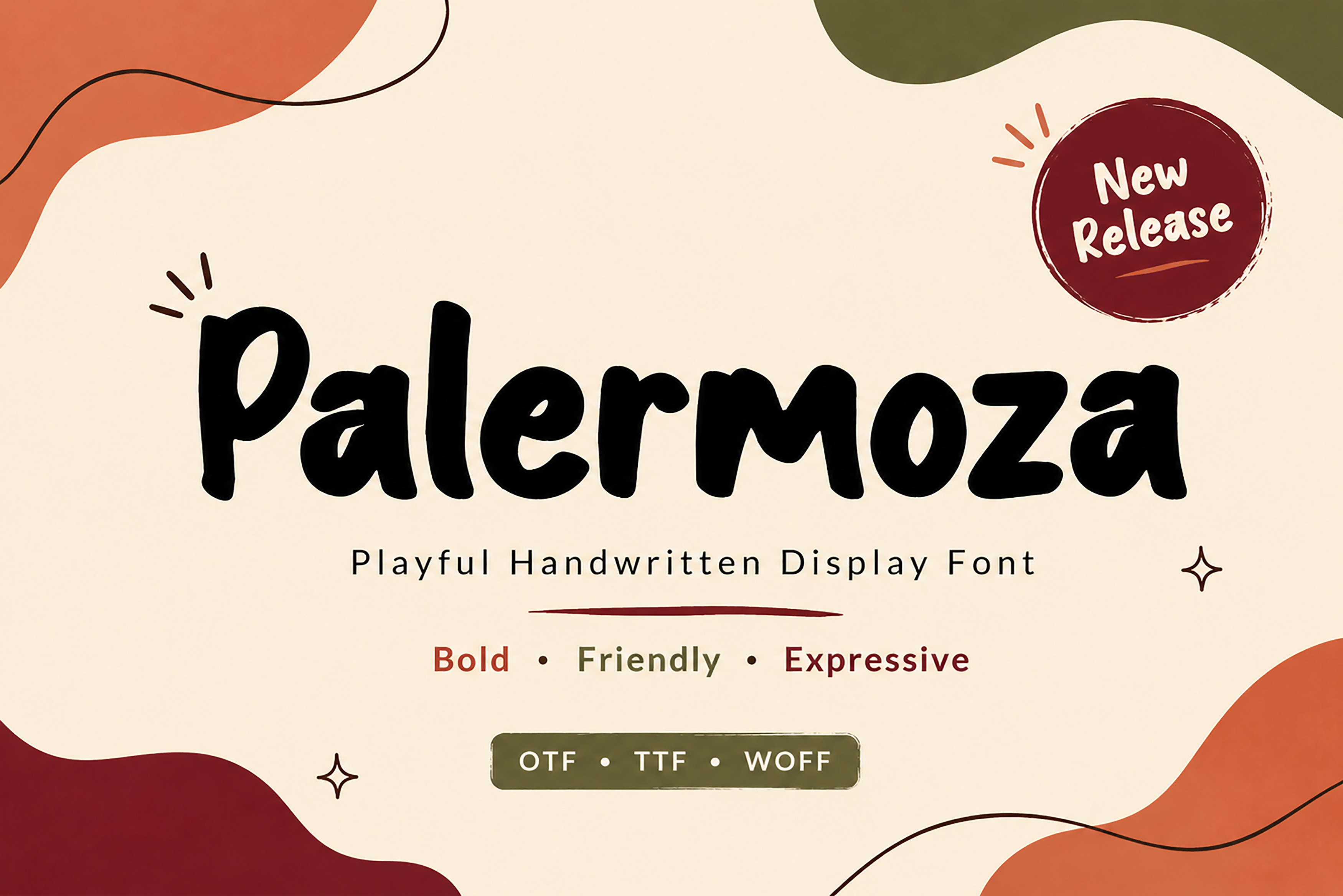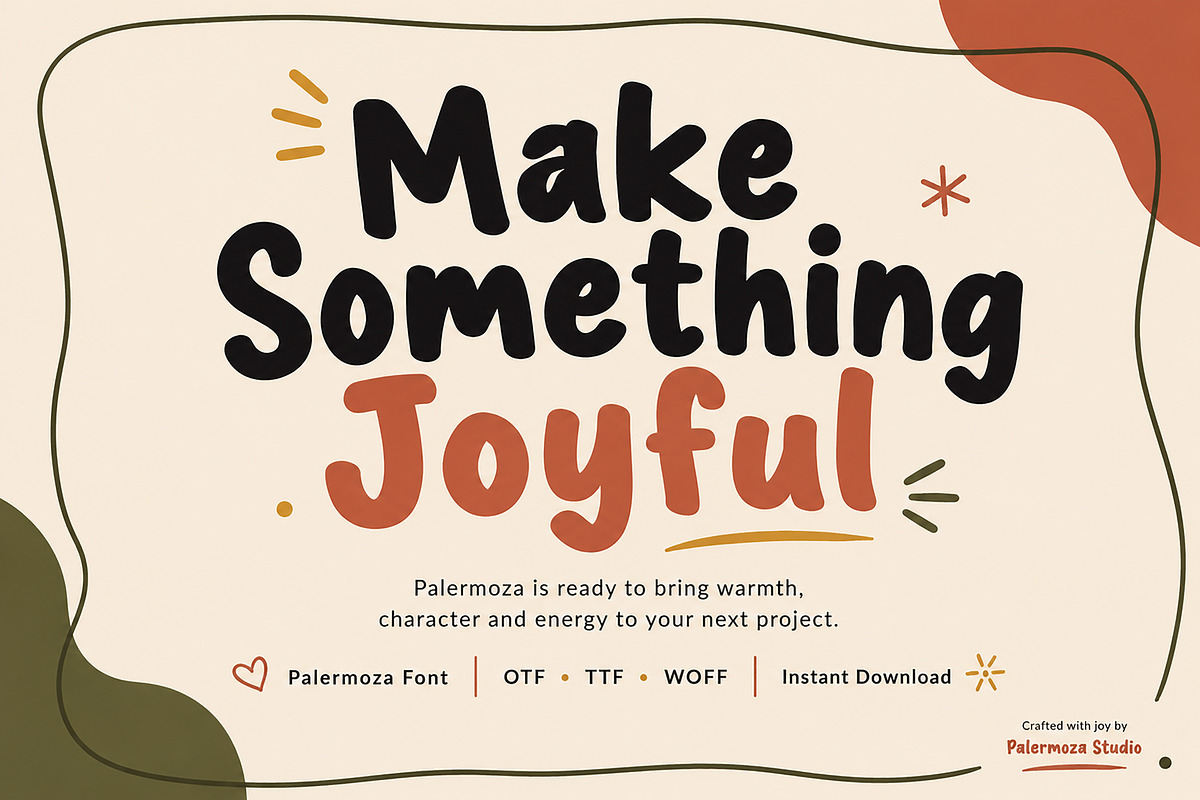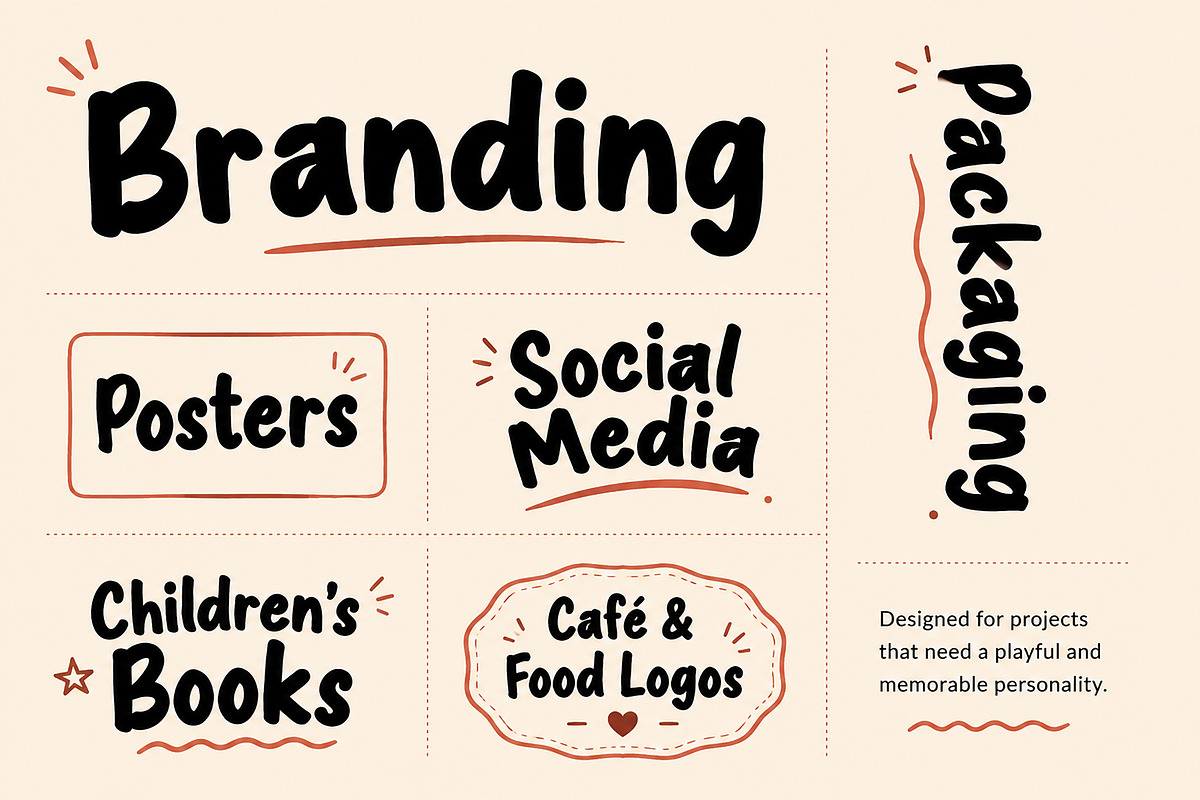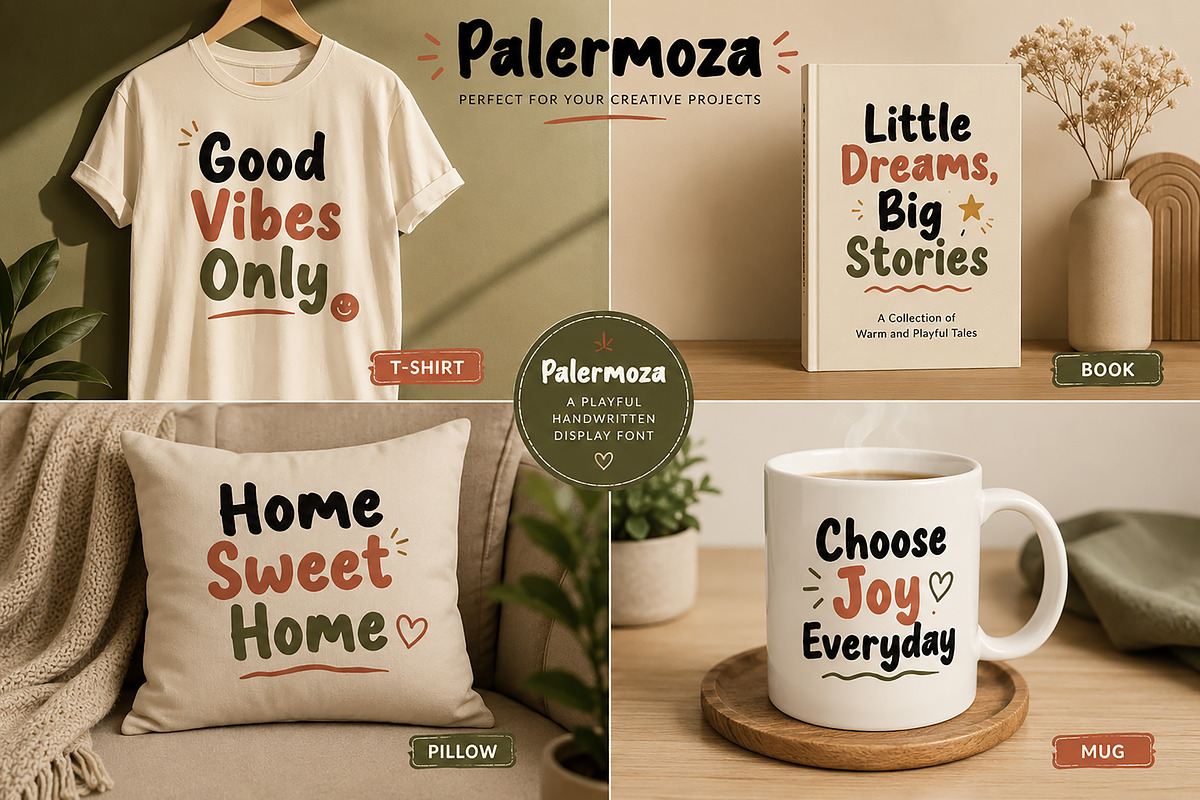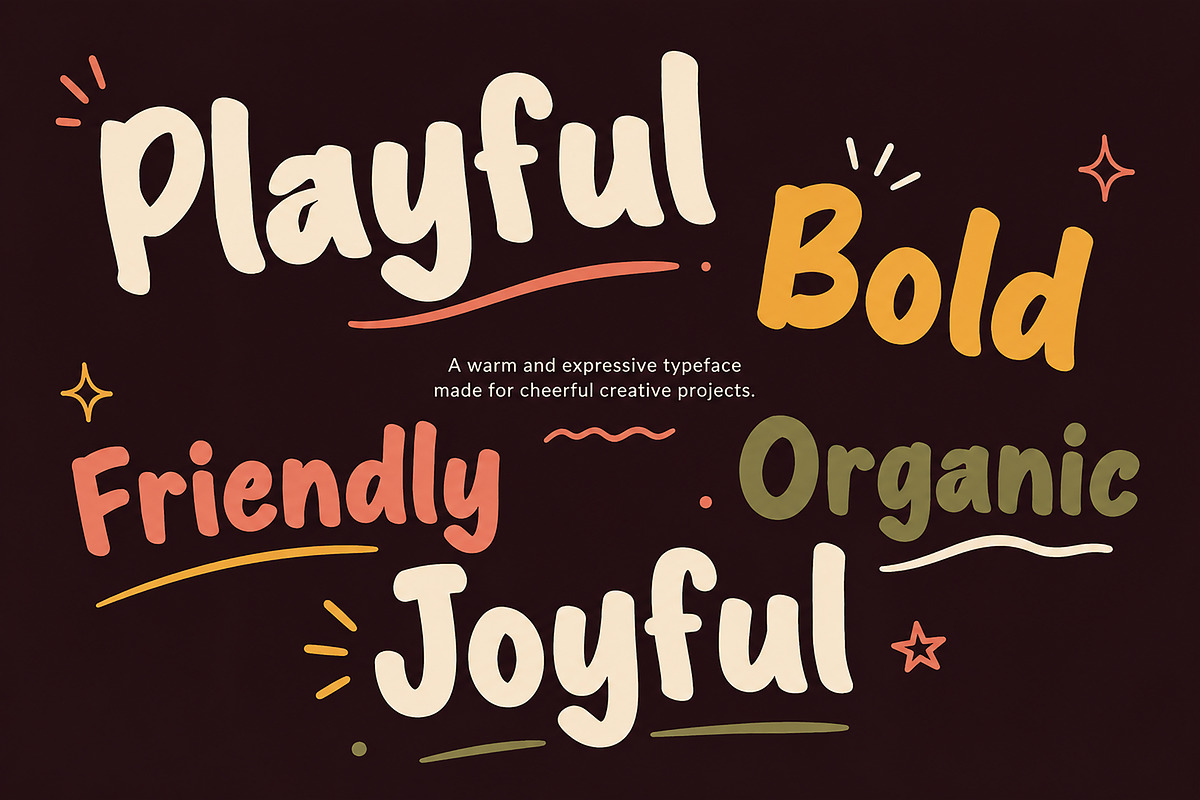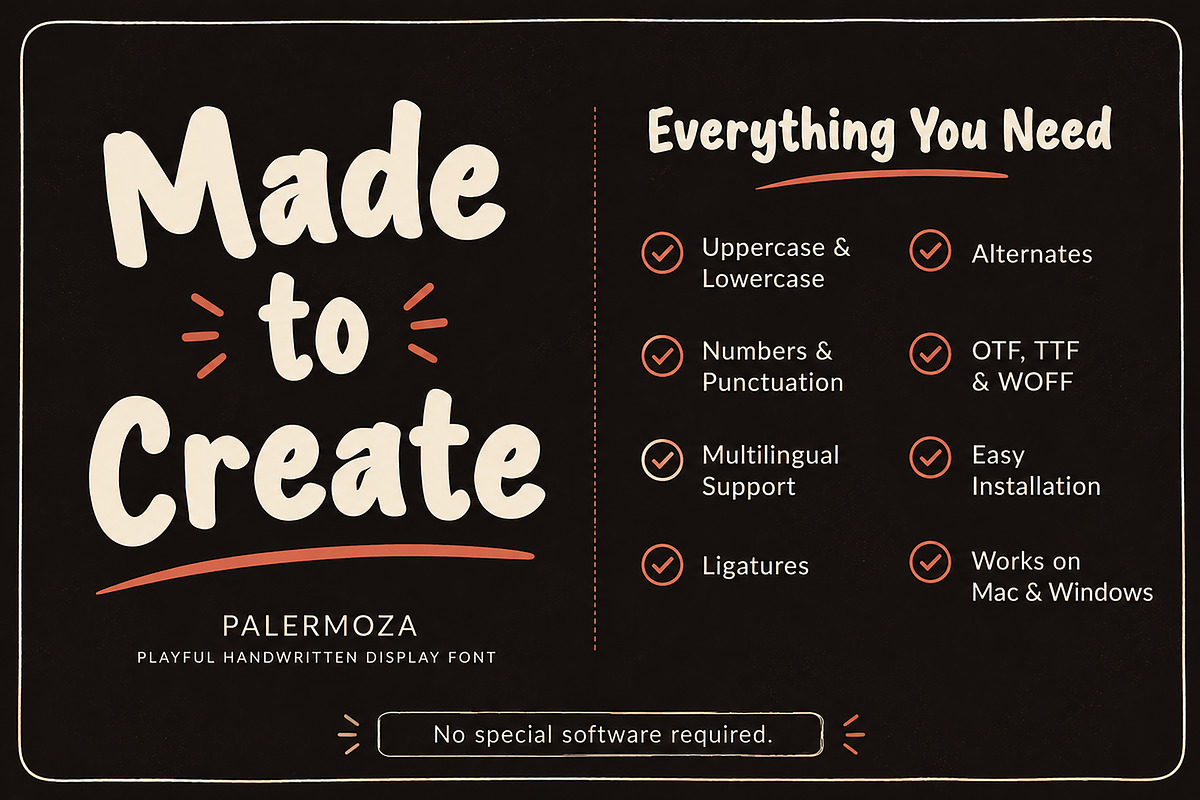
Palermoza – Playful Handwritten Font
Palermoza – Playful Handwritten Display Font
Bring warmth, personality, and creativity to every design with Palermoza, a bold handwritten display font created for projects that deserve a fun, friendly, and memorable look.
With its smooth organic curves and playful character, Palermoza is perfect for creating eye-catching headlines, charming branding, and expressive typography. Whether you're designing for print or digital media, this font helps your work feel more personal, joyful, and unique.
Designed with versatility in mind, Palermoza works beautifully across branding, packaging, social media, children's products, café branding, posters, invitations, merchandise, and more.
Branding & Visual Identity
Product Labels
Posters & Flyers
Children's Books
Café & Restaurant Branding
T-Shirt Designs
Mug & Pillow Prints
Greeting Cards
Stickers
Quotes
YouTube Thumbnails
DIY & Cricut Projects
Craft Designs
Uppercase Letters
Lowercase Letters
Why You'll Love Palermoza
Bold and playful personality
Clean handwritten style
Highly readable display font
Great for both print and digital projects
Perfect for modern creative branding
Gives every design a warm and cheerful appearance